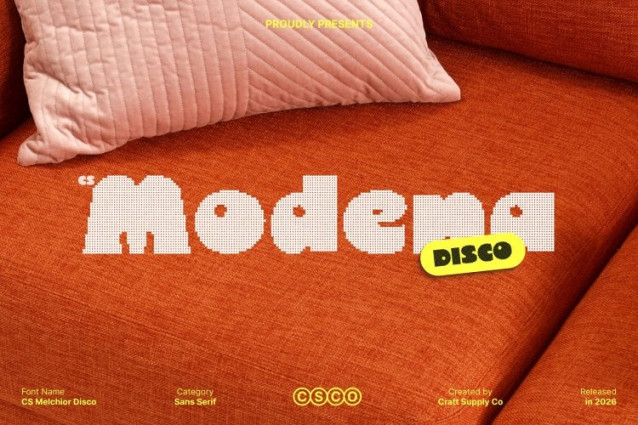
CS Modena Disco Font This is a bold sans serif display font built on strong, clean shapes and amplified with vibrant disco spirit. Its powerful letterforms deliver instant clarity and confidence, while a funky, expressive attitude brings movement and excitement like bold typography under flashing lights.
Expressive Forms with Funky Personality
More than a standard bold sans serif, this font carries a playful, rhythmic charm that makes every word feel alive. Subtle quirks in its structure introduce character and groove, giving the font an eye-catching presence that feels stylish, energetic, and confidently modern.
Built for Impactful, High-Energy Statements
Designed to command attention, this font thrives in headlines, posters, branding, logos, and social media graphics. Its bold weight ensures maximum visibility, while its disco-inspired personality adds flair and attitude perfect for visuals that want to feel loud, fun, and unforgettable.
Strength Meets Style on the Dance Floor
This font balances solid geometric construction with expressive individuality. Whether used in clean minimalist layouts or vibrant, high-energy campaigns, it delivers authority, funk, and modern glamour in equal measure bold by design, electric by nature.